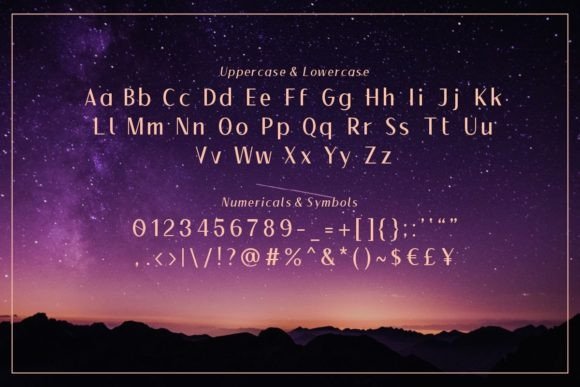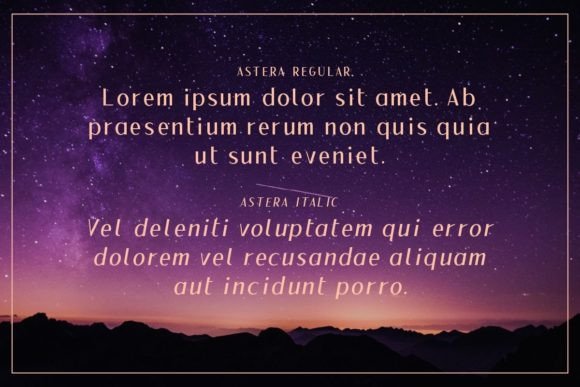
Astera Font: Elevate Your Designs with Elegance and Luxury
Are you looking for a font that can add a touch of sophistication and glamour to your designs? Look no further than Astera Font, a stunning sans serif font that is perfect for creating luxurious and elegant visuals. In this article, we’ll explore the features and benefits of Astera Font, and how it can elevate your branding, logos, and other creative projects.
What is Astera Font?
Astera Font is a modern sans serif font that is designed to bring a sense of elegance and luxury to your designs. Its clean and sleek lines make it perfect for use in a variety of applications, from branding and logos to headings and body text. Astera Font is a versatile font that can be used in both digital and print designs, making it a great addition to any designer’s toolkit.
Key Features of Astera Font
Astera Font has several key features that make it stand out from other fonts. Some of its notable features include:
- Elegant and Luxurious Design: Astera Font has a sleek and sophisticated design that is perfect for creating high-end visuals.
- Versatile and Adaptable: Astera Font can be used in a variety of applications, from branding and logos to headings and body text.
- Clean and Readable: Astera Font has a clean and readable design that makes it easy to use in both digital and print designs.
- Modern and Fresh: Astera Font has a modern and fresh design that is perfect for creating contemporary visuals.
Benefits of Using Astera Font
There are many benefits to using Astera Font in your designs. Some of the benefits include:
- Adds Elegance and Luxury: Astera Font can add a touch of elegance and luxury to your designs, making them stand out from the crowd.
- Improves Readability: Astera Font has a clean and readable design that makes it easy to read, even in small sizes.
- Increases Versatility: Astera Font can be used in a variety of applications, making it a great addition to any designer’s toolkit.
- Enhances Brand Identity: Astera Font can help to create a strong and cohesive brand identity, making it perfect for use in branding and logos.
How to Use Astera Font in Your Designs
Astera Font is easy to use in your designs, and can be incorporated into a variety of applications. Here are some ways you can use Astera Font in your designs:
- Branding and Logos: Use Astera Font to create elegant and luxurious branding and logos that will help your business stand out.
- Headings and Titles: Use Astera Font to create stunning headings and titles that will add a touch of sophistication to your designs.
- Body Text: Use Astera Font as a body text font to create clean and readable text that is easy to read.
- Advertising and Marketing Materials: Use Astera Font to create eye-catching advertising and marketing materials that will grab the attention of your audience.
Tips and Tricks for Getting the Most Out of Astera Font
Here are some tips and tricks for getting the most out of Astera Font:
- Use it with a Bold Font: Pair Astera Font with a bold font to create a striking contrast that will add visual interest to your designs.
- Experiment with Different Sizes: Experiment with different sizes of Astera Font to create a hierarchy of text that will add depth and interest to your designs.
- Use it in Combination with Images: Use Astera Font in combination with images to create stunning visuals that will grab the attention of your audience.
| Author | letterlogy |
Astera Font is a stunning sans serif font that is perfect for adding elegance, class, and luxury to your designs. Its clean and sleek lines make it perfect for use in a variety of applications, from branding and logos to headings and body text. With its versatile and adaptable design, Astera Font is a great addition to any designer’s toolkit. Whether you’re a designer, craft, or business owner, Astera Font is a great choice for anyone looking to elevate their designs and create a lasting impression.